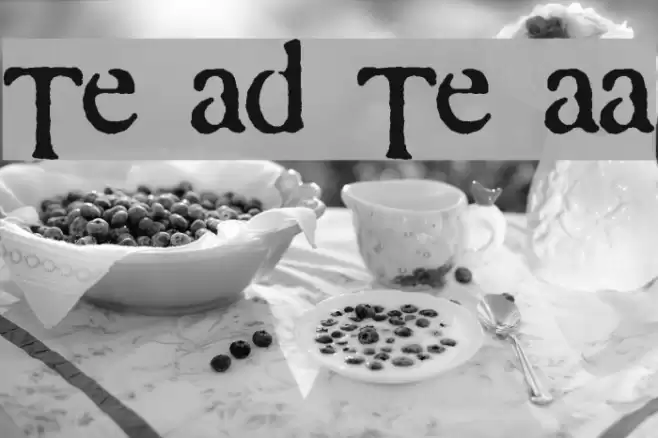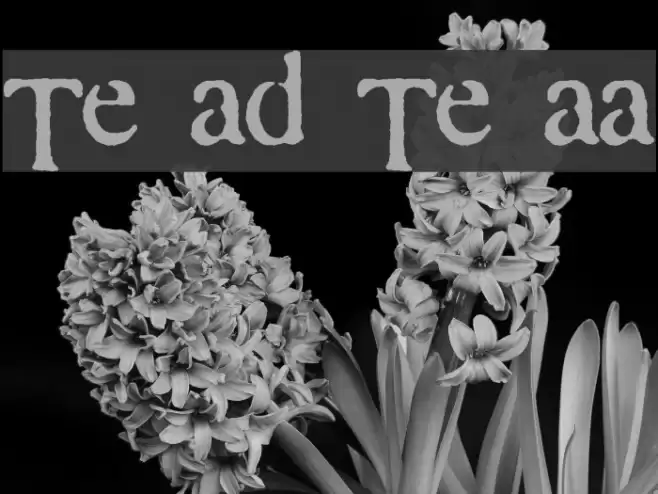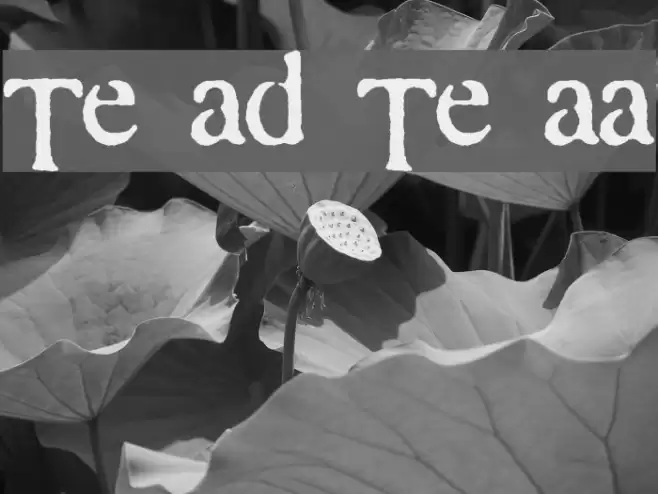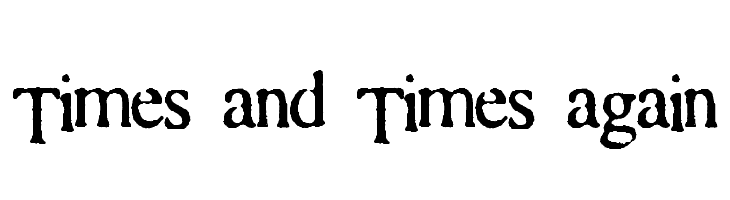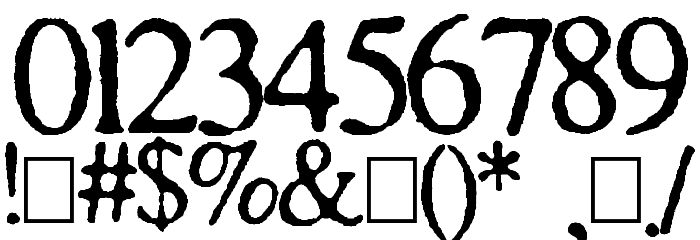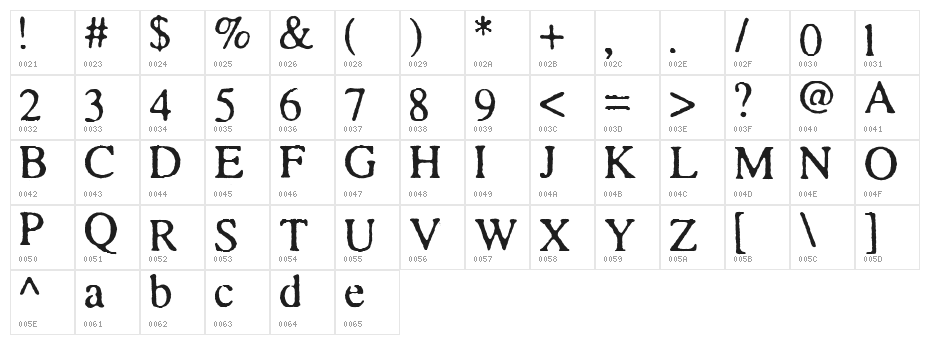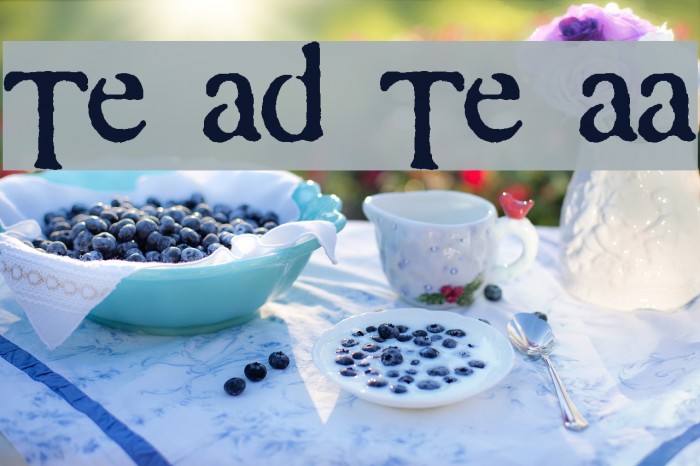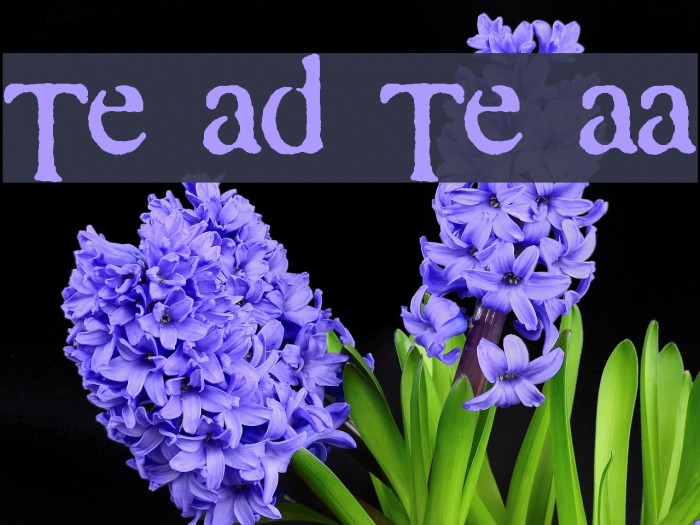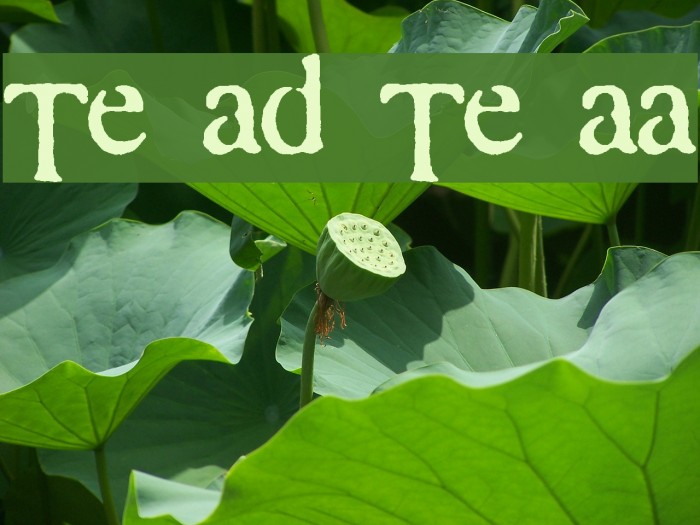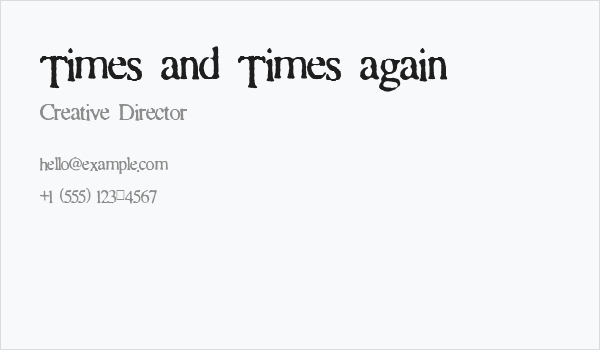
Times and Times again Font
Times and Times again Description
This font exhibits a classic serif style with a strong, authoritative presence. The characters are well-defined with prominent serifs that add a touch of elegance and tradition. The uppercase letters are bold and commanding, while the lowercase letters maintain a consistent flow with slightly rounded edges. Numbers are clear and legible, making them suitable for various applications. The special characters are distinct and maintain the overall aesthetic of the font. This typeface is versatile, offering a timeless appeal that can enhance both formal and creative projects.
A classic serif font with bold, elegant characters and strong serifs from Distorted Eroded fonts.
- Proposed Projects: Ideal for book covers, formal invitations, editorial layouts, and branding materials.
- Overall Style: Classic